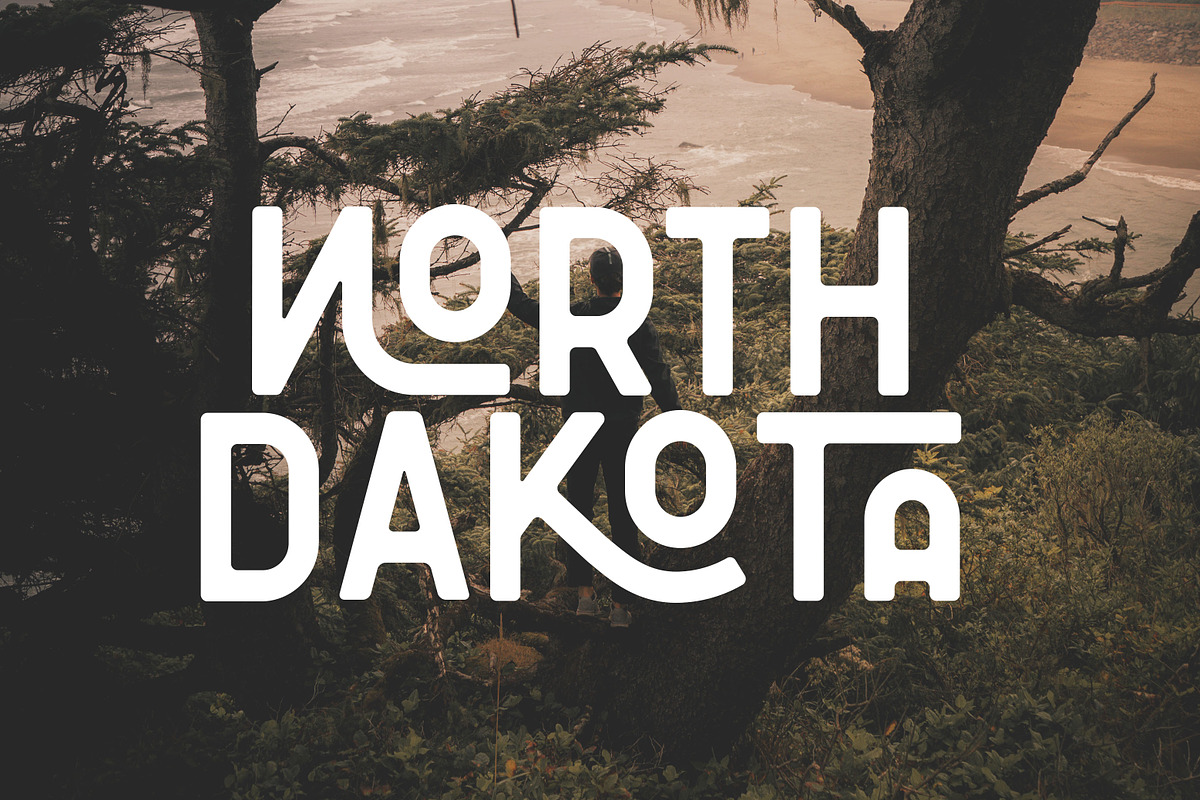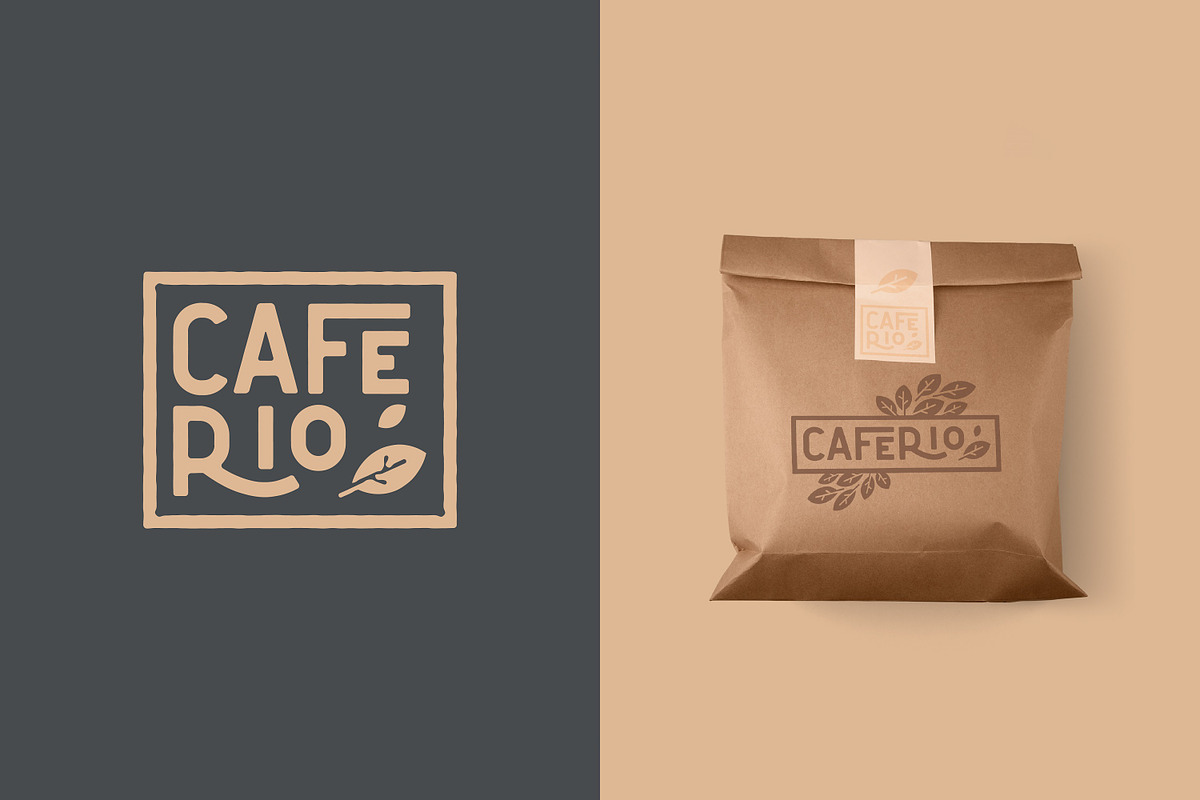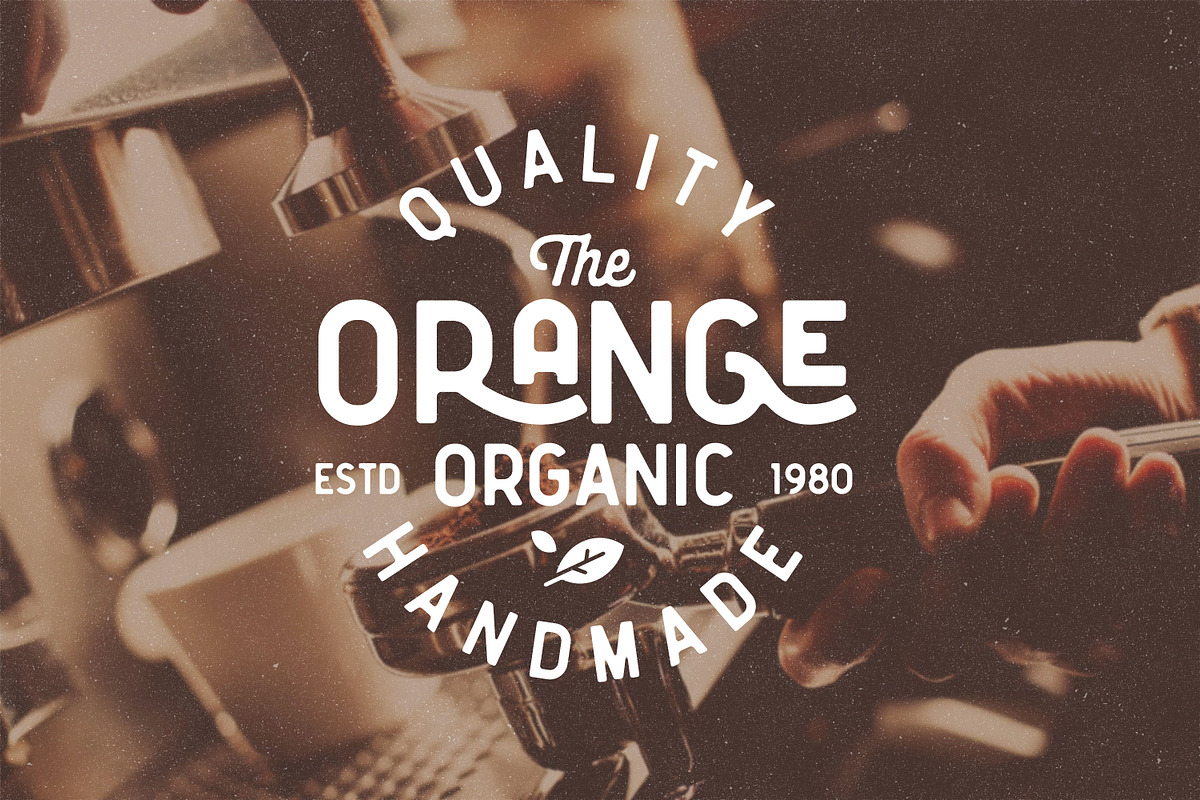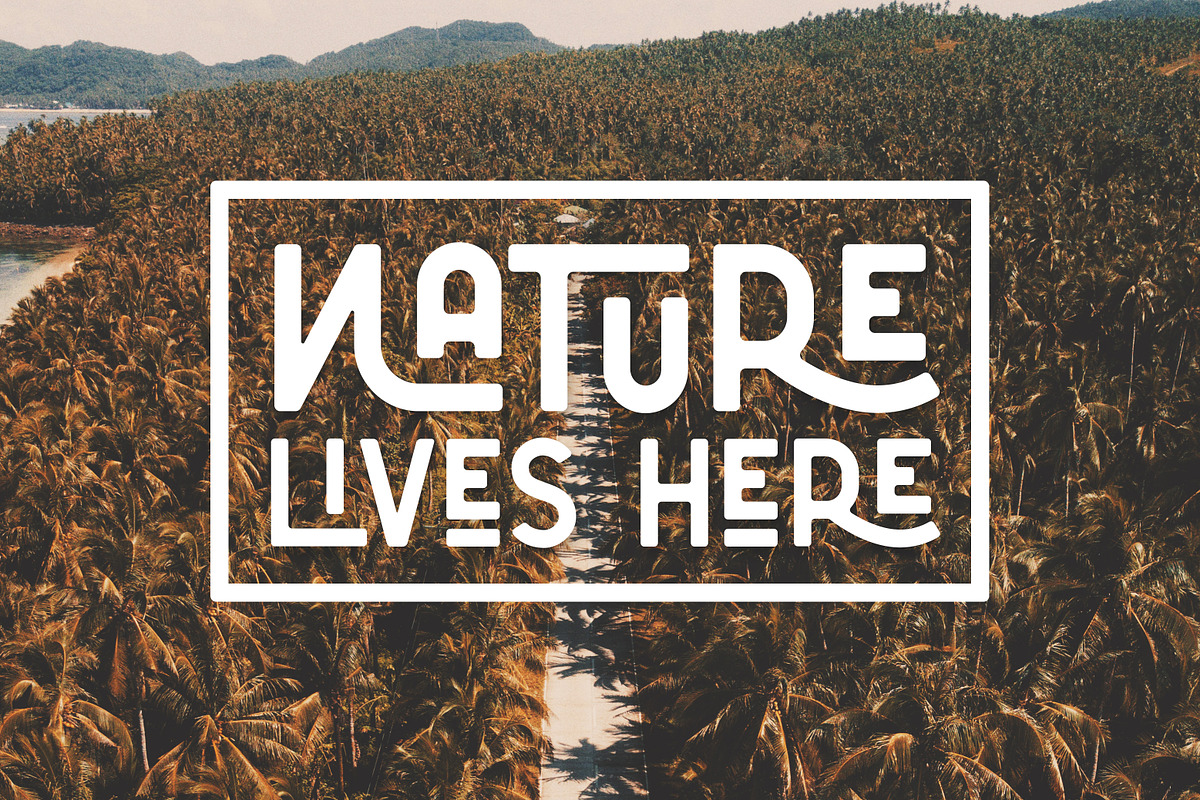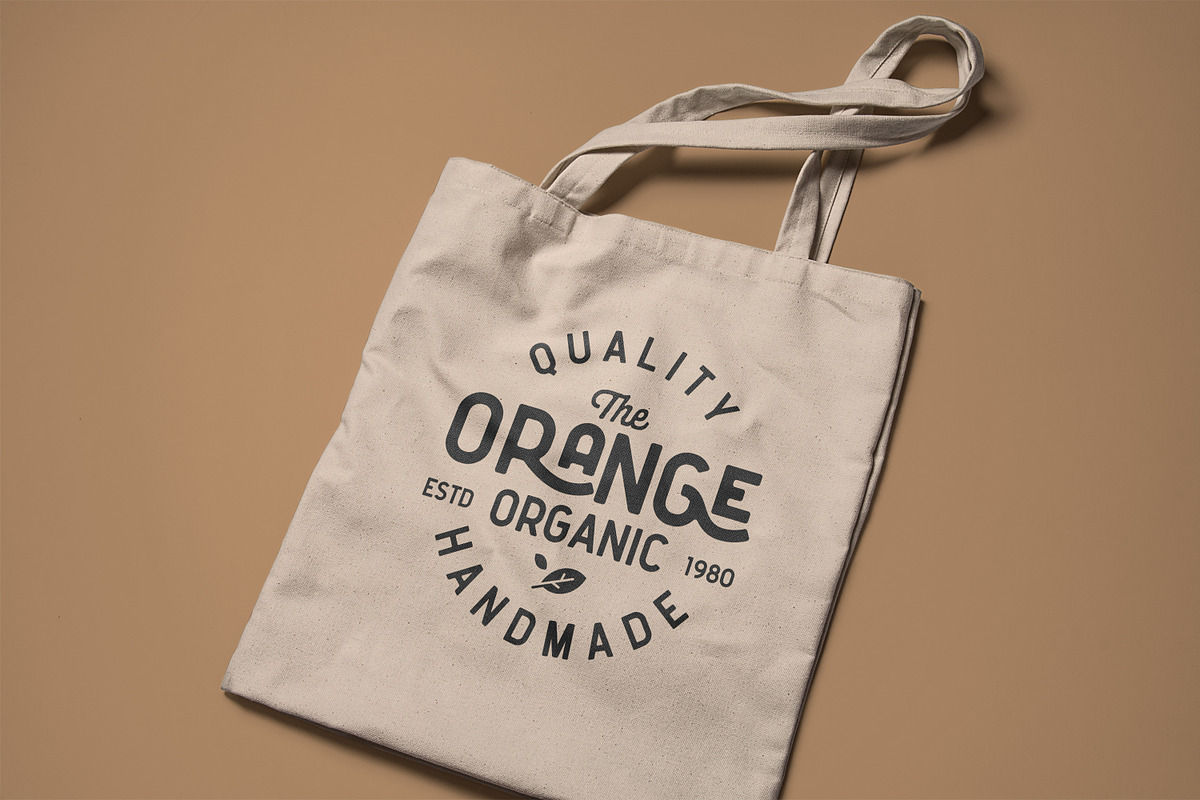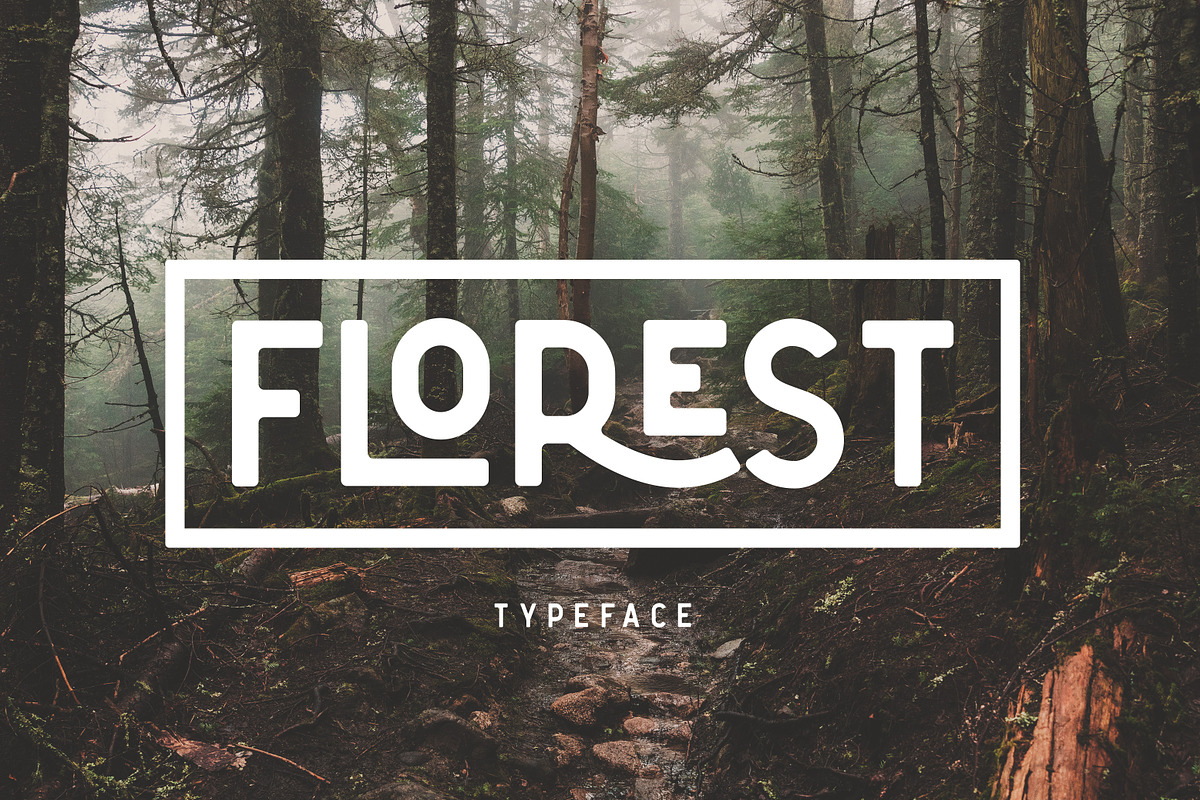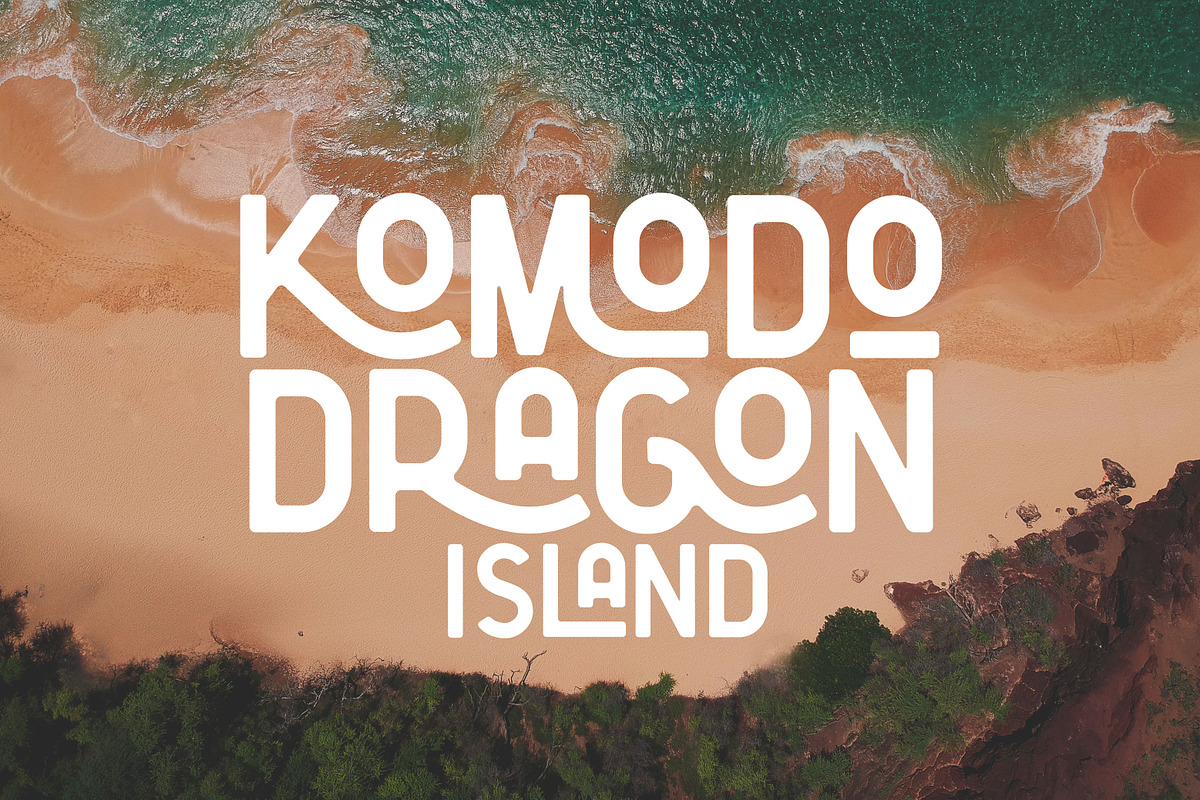
Caferio - The Florest Typeface
The Florest is a clean bold and simple vintage sans serif font, with smooth edges and touch of many beautiful alternate characters make this font look Elegant & stylist. It contains an uppercase alphabet with numbers and symbols. Designed with Stylistic Alternates and Contextual Alternate in some characters that allows you to mix and match pairs of letters to fit your design. Perfect for many different projects: quotes, blog header, poster, wedding, branding, logo, fashion, apparel, letter, invitation, stationery, etc
Two Styles : Regular & Outlined
Character set A-Z with special uppercase letters